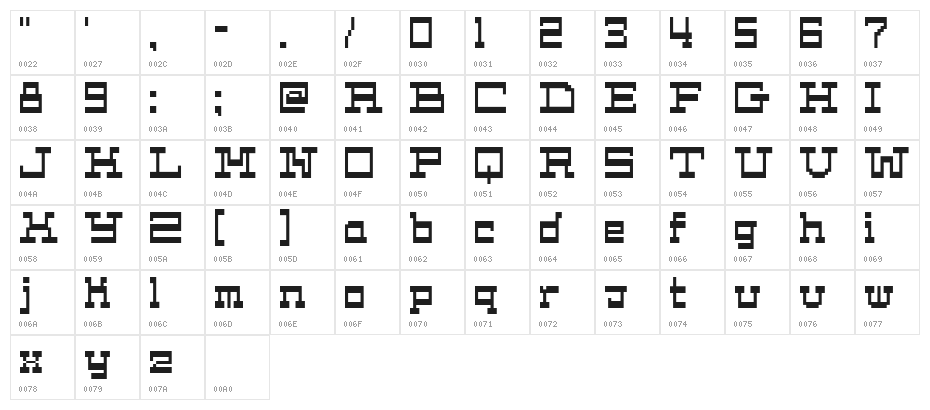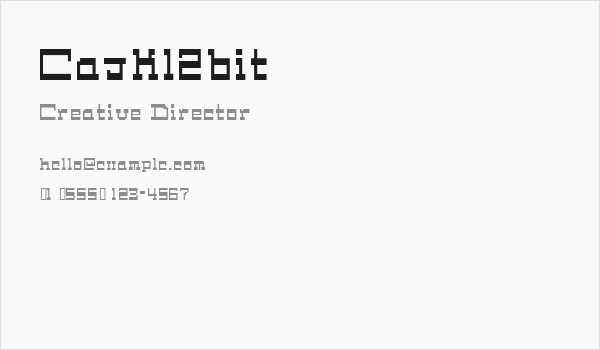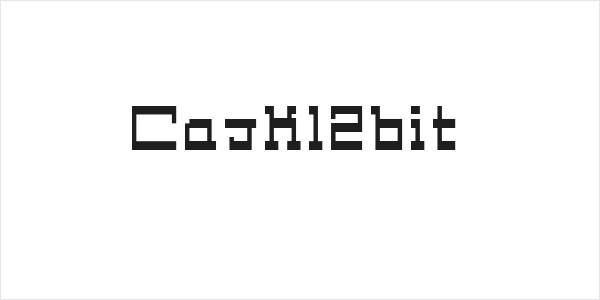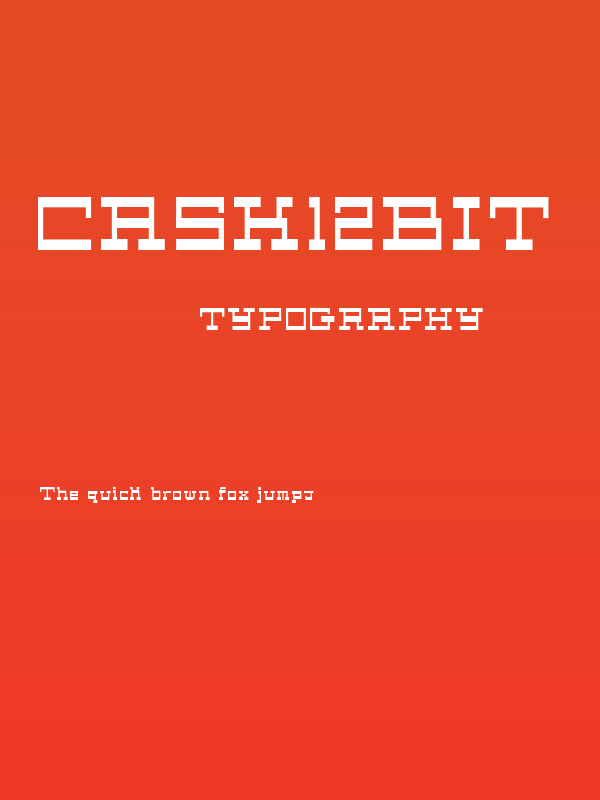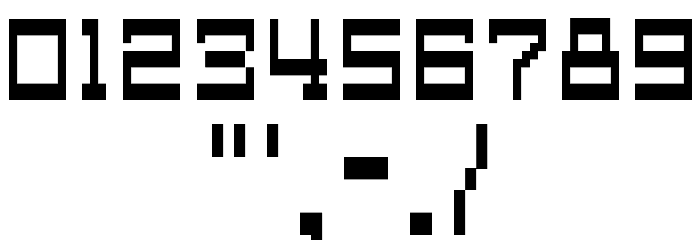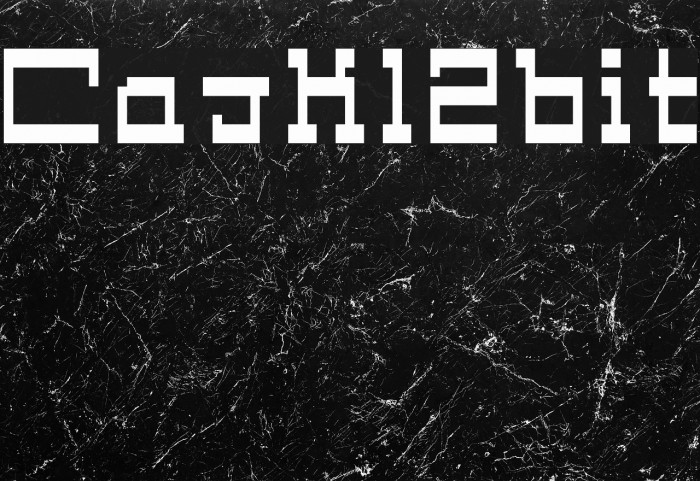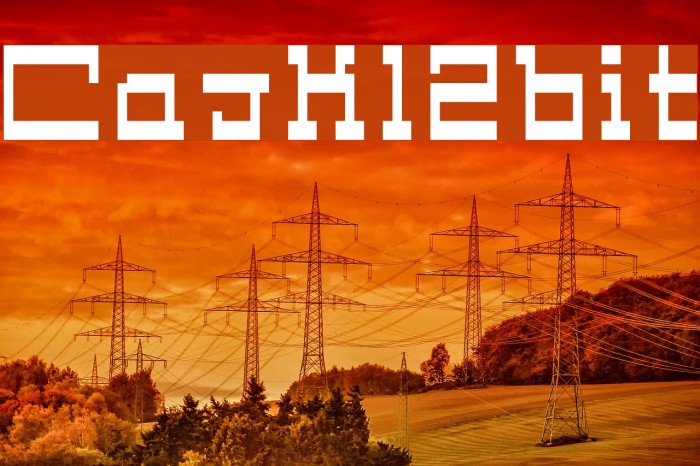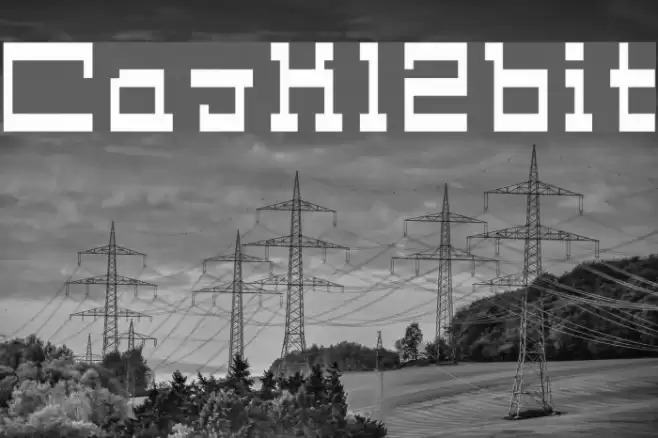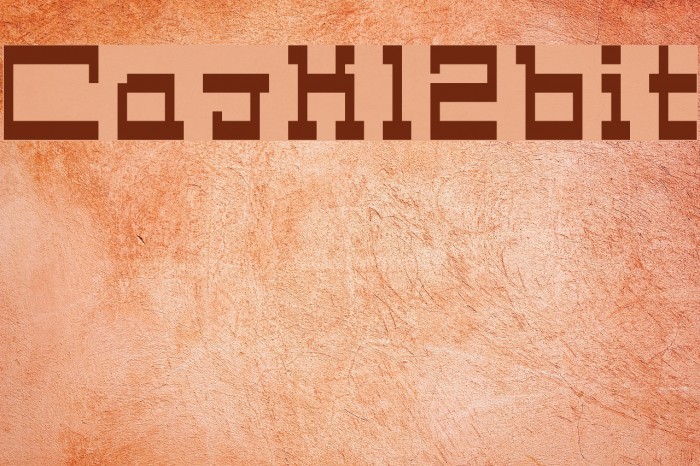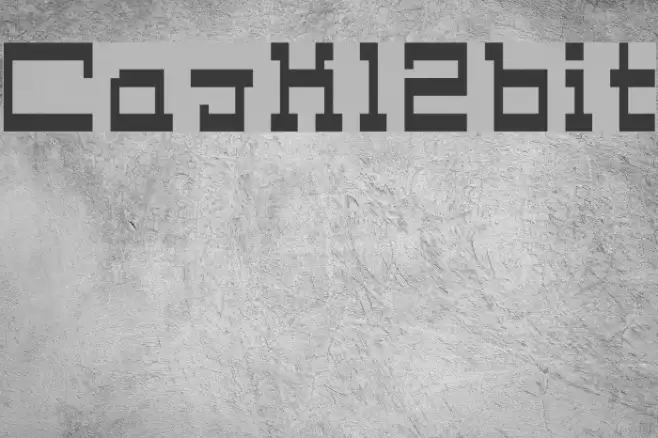
Cask12bit Font
Cask12bit Description
This font features a distinct pixelated style reminiscent of early digital displays and retro video games. Each character is composed of blocky, square shapes that give it a highly geometric and structured appearance. The uppercase and lowercase letters maintain a consistent height, contributing to a uniform look across the text. The numerals and special characters follow the same design principles, ensuring coherence throughout. The font's design is straightforward, with no curves or embellishments, emphasizing its digital and technical aesthetic. Its bold and clear presentation makes it highly legible, even at smaller sizes.
| Overall Style | Retro, Digital |
| Use Case | Headlines, Logos, Digital Art |
| Proposed Projects | Ideal for projects involving retro video game design, digital art, tech-themed posters, and any creative work that seeks a nostalgic or digital aesthetic. |